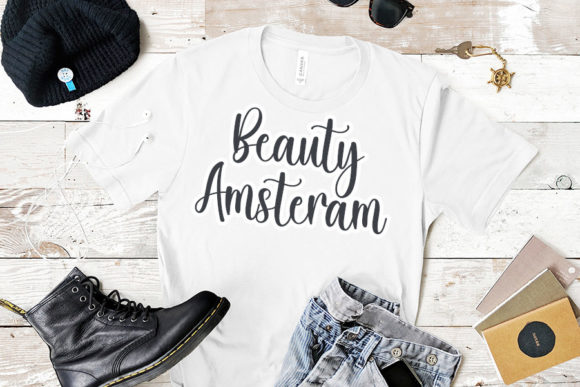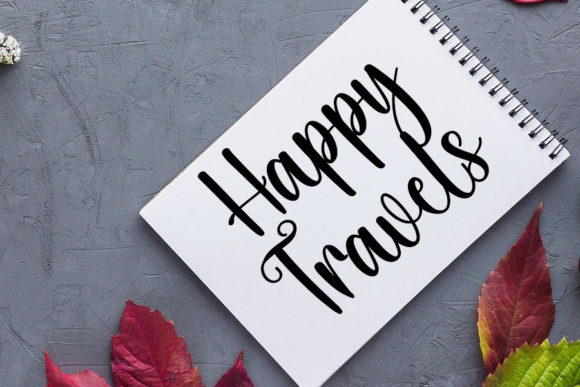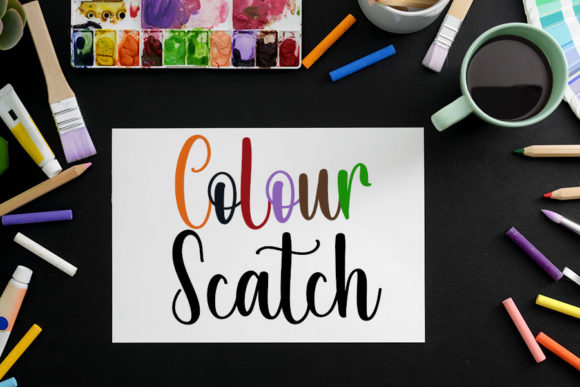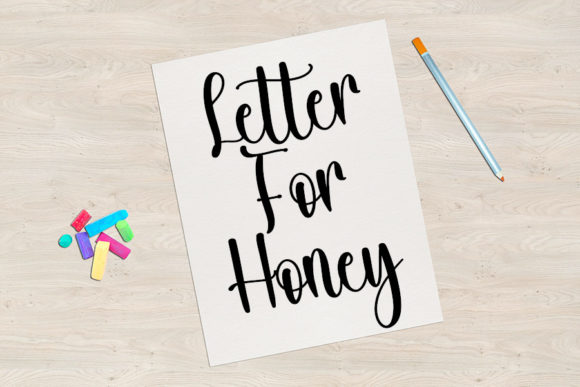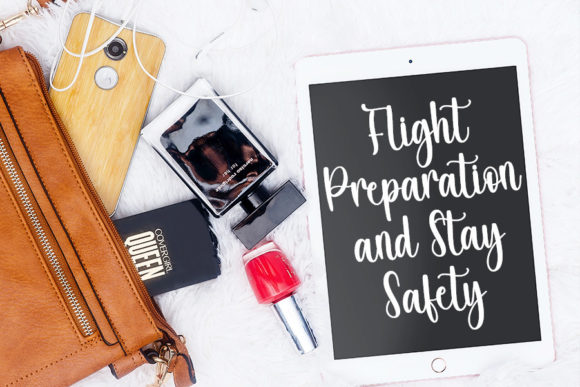
Discover the Charm of Amsterdam Font: A Modern Calligraphic Masterpiece
Are you a designer or crafter looking for a font that exudes elegance and sophistication? Look no further than the Amsterdam Font, a stunning handwritten typeface that is sure to become a favorite in your collection. With its perfect blend of classy calligraphic influences and modern freshness, Amsterdam Font is the ideal choice for a wide range of design projects.
The Story Behind Amsterdam Font
Amsterdam Font is a carefully crafted handwritten font that boasts a unique and captivating charm. Its creator, with a keen eye for detail and a deep understanding of typography, has masterfully designed this font to evoke a sense of refinement and luxury. Whether you’re working on a branding project, a wedding invitation, or a packaging design, Amsterdam Font is sure to add a touch of sophistication and glamour.
Key Features of Amsterdam Font
So, what makes Amsterdam Font so special? Here are just a few of its key features:
- Classy Calligraphic Influences: Amsterdam Font boasts elegant calligraphic flourishes that give it a refined and sophisticated feel.
- Modern and Fresh: Despite its classic influences, Amsterdam Font feels contemporary and fresh, making it perfect for designers who want to create modern and stylish designs.
- Handwritten Charm: With its unique and varied letterforms, Amsterdam Font has a charming, handwritten feel that adds a personal touch to any design.
- Highly Versatile: Whether you’re working on a digital project or a print design, Amsterdam Font is highly versatile and can be used in a wide range of applications.
Uses for Amsterdam Font
Amsterdam Font is an incredibly versatile typeface that can be used in a wide range of design projects. Here are just a few ideas to get you started:
- Branding and Logo Design: With its elegant and sophisticated feel, Amsterdam Font is perfect for creating luxury brand identities and logos.
- Wedding Invitations and Stationery: Add a touch of glamour and refinement to your wedding invitations, stationery, and other paper goods with Amsterdam Font.
- Packaging Design: Use Amsterdam Font to add a touch of elegance and sophistication to your packaging designs, from food and beverage labels to cosmetics and beauty products.
- Digital Design: Amsterdam Font is also perfect for digital designs, including social media graphics, website headers, and email newsletters.
Tips for Using Amsterdam Font
To get the most out of Amsterdam Font, here are a few tips to keep in mind:
- Use it Sparingly: Because of its elegant and sophisticated feel, Amsterdam Font is best used sparingly. Use it as a headline font or for key messaging, and pair it with a simpler font for body text.
- Experiment with Colors: Amsterdam Font looks stunning in a range of colors, from rich jewel tones to metallic silvers and golds. Experiment with different colors to find the perfect combination for your design.
- Pair it with Other Fonts: Amsterdam Font pairs beautifully with a range of other fonts, from modern sans serifs to elegant serifs. Experiment with different pairings to find the perfect combination for your design.
In conclusion, Amsterdam Font is a truly exceptional handwritten font that is sure to become a favorite in your design collection. With its perfect blend of classy calligraphic influences and modern freshness, it’s the ideal choice for a wide range of design projects. Whether you’re a designer, crafter, or simply someone who appreciates beautiful typography, Amsterdam Font is definitely worth checking out.